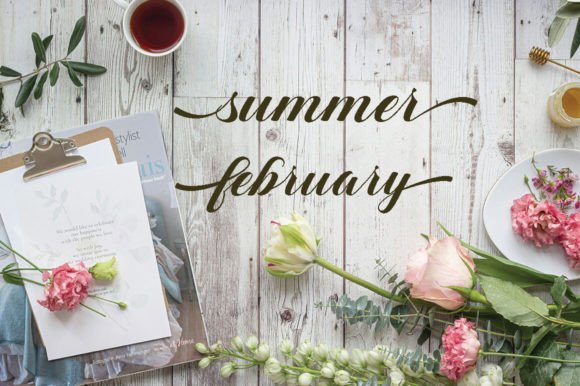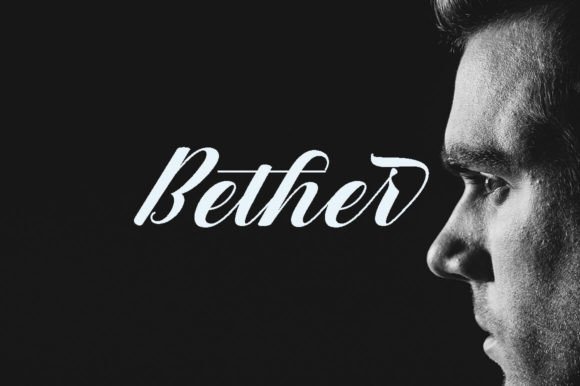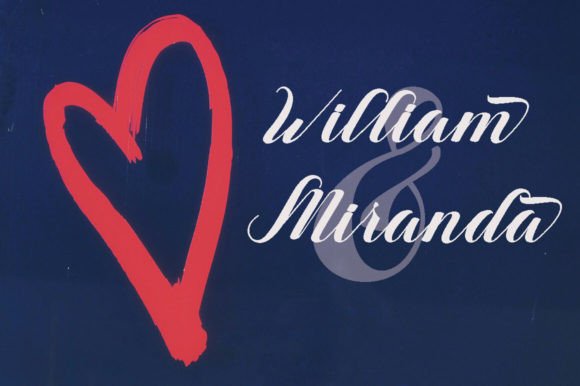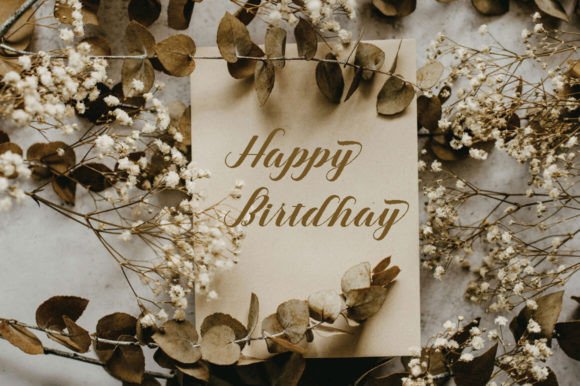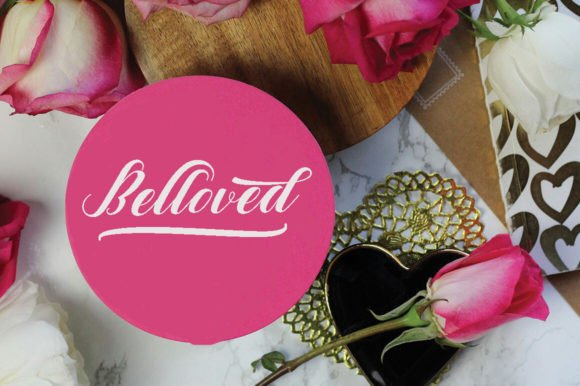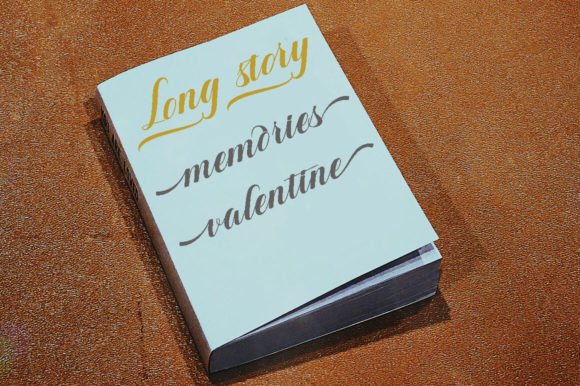
The Amettha Font: A Perfect Blend of Modern Elegance and Femininity
As a designer, I’ve had my fair share of font struggles. I recall working on a wedding invitation project, spending hours searching for the perfect font that exuded elegance and sophistication. My client wanted a design that was both modern and feminine, and I was determined to deliver. That’s when I stumbled upon the Amettha Font, a game-changer that has since become a staple in my design toolkit.
- ✨ The perfect blend of modern and elegant, making it suitable for a wide range of design projects.
- ✅ A handcrafted style that adds a touch of uniqueness and personality to any design.
- 💕 The font’s feminine and elegant vibe makes it ideal for projects that require a subtle yet sophisticated touch.
- 🎉 Its versatility allows it to be used for logos, branding, invitations, stationery, wedding designs, social media, and more.
While the Amettha Font is an excellent choice for many design projects, there are a few minor limitations to consider:
- ⚠️ The font’s script style may not be suitable for very long blocks of text, as it can be challenging to read.
- 🤔 Some users may find the font’s elegance and sophistication limiting for more playful or casual designs.
The Designer Inspiration Behind Amettha Font
The Amettha Font was designed with the intention of creating a beautiful, elegant script font that exudes femininity and sophistication. The designer’s inspiration was drawn from classic calligraphy and handwriting, with a modern twist to make it suitable for a wide range of design projects.
Q: What type of designs is the Amettha Font best suited for?
A: The Amettha Font is versatile and can be used for a wide range of design projects, including logos, branding, invitations, stationery, wedding designs, social media, and more.
Q: Is the Amettha Font easy to read?
A: The Amettha Font is a script font, and while it’s elegant and sophisticated, it may not be suitable for very long blocks of text. It’s best used for headlines, titles, and short paragraphs.